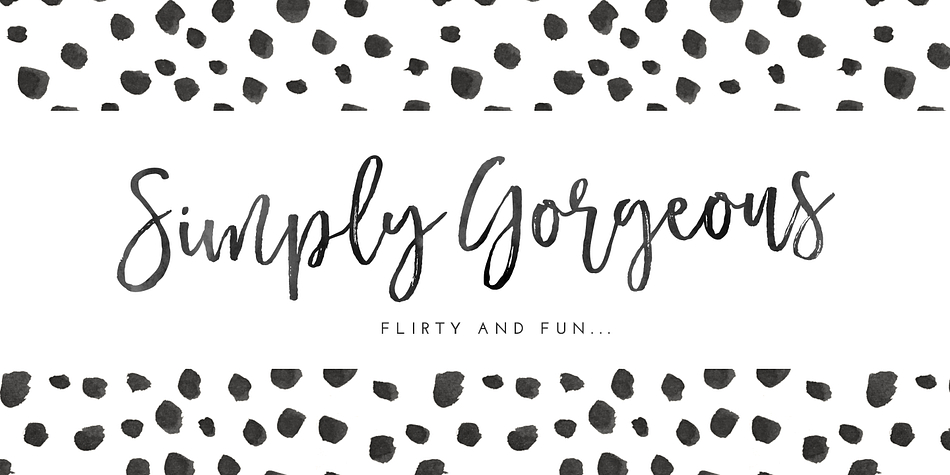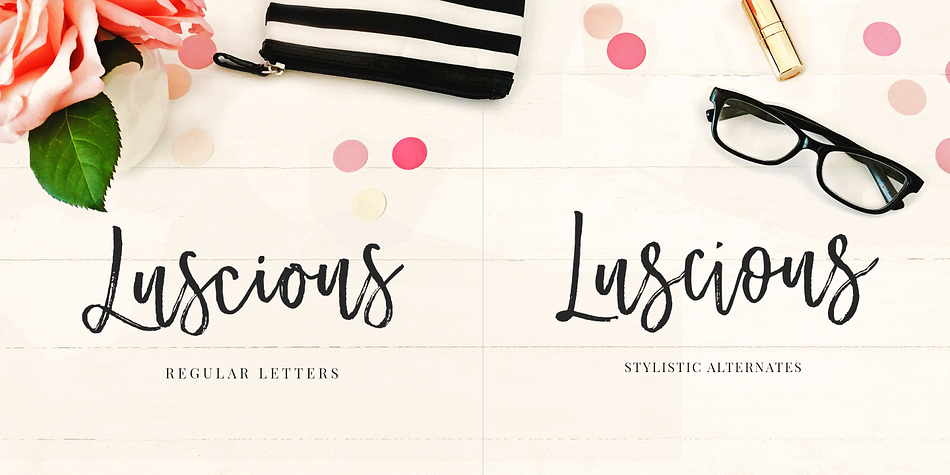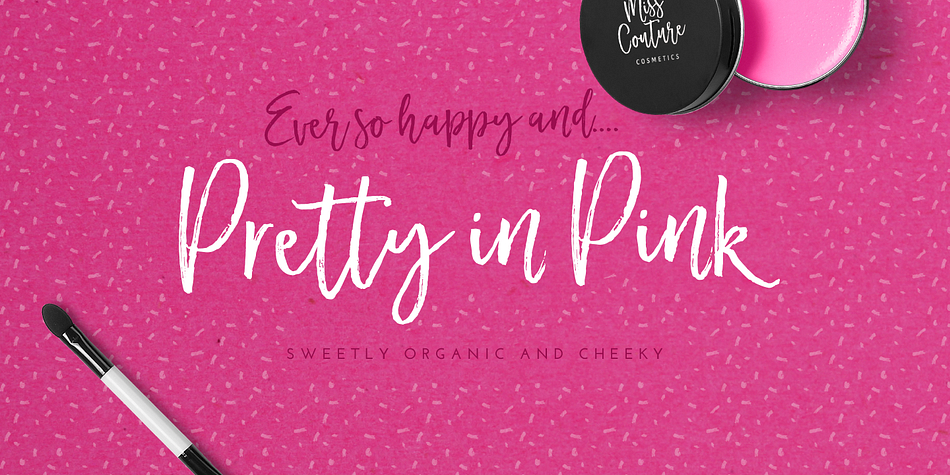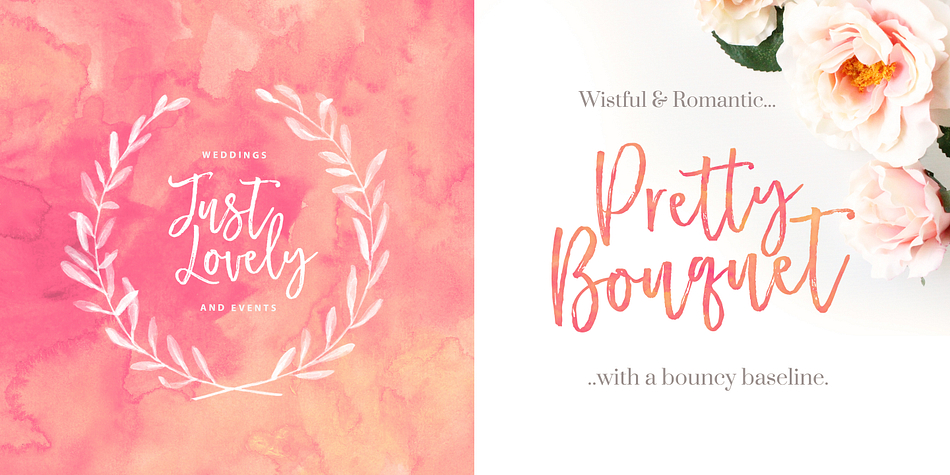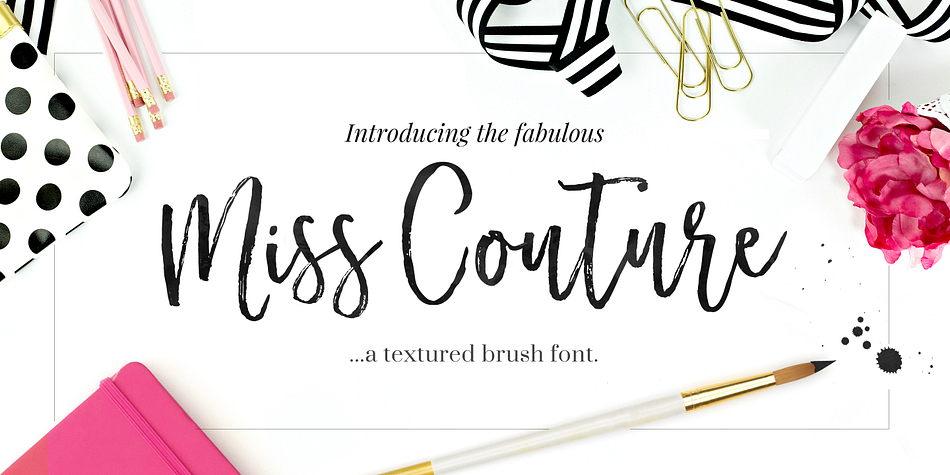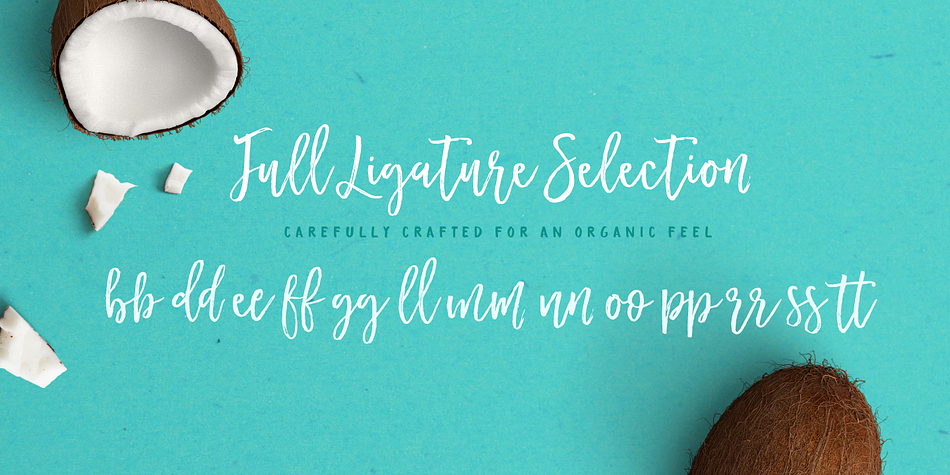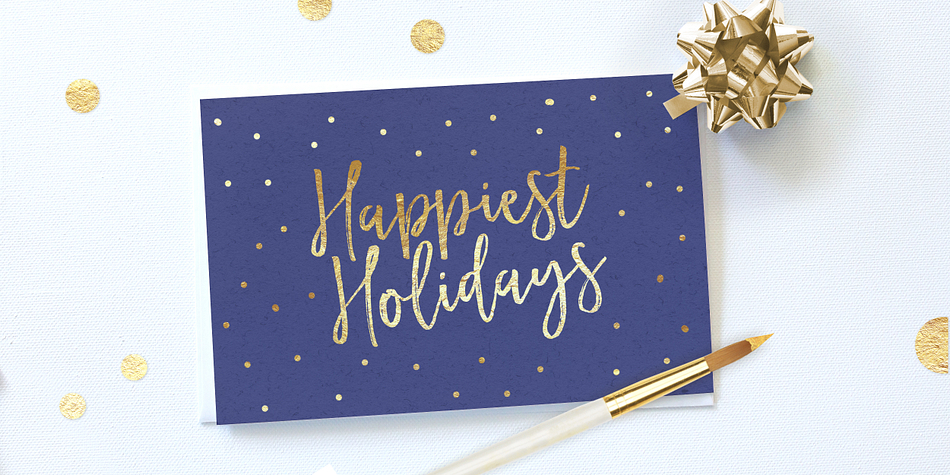
Miss Couture is a modern calligraphy font family. This typeface has two styles and was published by Nicky Laatz.
Miss Couture is a cheeky feminine brush script with a playful baseline.
It includes both a regular and slanted version, with stylistic alternates for both upper and lowercase letters, and a extensive set of ligatures to add to the organic nature of the typeface.
Perfect for use in Logos, branding, apparel, greeting cards, presentations, social media, posters, retail outlet design, and magazine layouts.